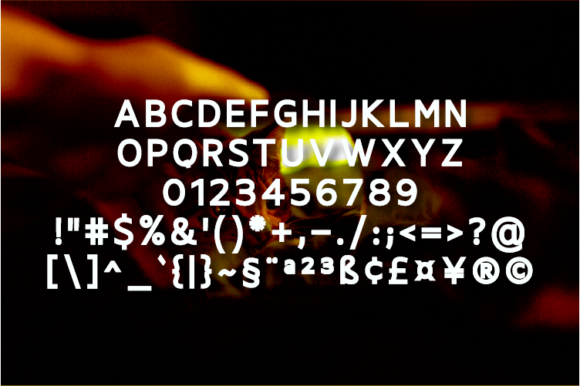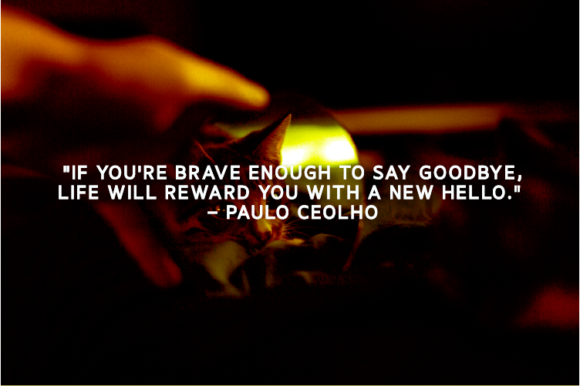
Introducing Edmonde Font: The Ultimate Sans Serif for Your Creative Projects
Are you tired of using the same old fonts for your designs? Look no further! Edmonde Font is here to revolutionize your creative projects with its simplicity and versatility. This sans serif font is carefully crafted to complement any project you’re currently working on, making it the perfect addition to your font library.
What is Edmonde Font?
Edmonde Font is a modern sans serif font designed to provide a clean and elegant look to your designs. Its simplicity makes it an excellent choice for a wide range of projects, from headings and invitations to logos and more. With Edmonde, you can add a touch of sophistication and professionalism to your work, making it stand out from the crowd.
Key Features of Edmonde Font
- Simple and Versatile: Edmonde Font is designed to be simple yet versatile, making it suitable for various design projects.
- Sans Serif: The font features a clean sans serif design, perfect for creating modern and elegant designs.
- Easy to Read: Edmonde Font is optimized for readability, ensuring that your text is clear and easy to understand.
- Highly Customizable: The font comes with a range of customization options, allowing you to tailor it to your specific design needs.
Use Cases for Edmonde Font
Edmonde Font is an incredibly versatile font that can be used in a variety of design projects, including:
- Headings: Use Edmonde Font to create stunning headings that grab attention and add a touch of elegance to your designs.
- Invitations: Create beautiful invitations for special occasions, such as weddings, birthdays, and more.
- Logos: Edmonde Font is perfect for creating stunning logos that reflect your brand’s personality and values.
- Signage: Use Edmonde Font for signage, such as billboards, posters, and more.
- Digital Media: Edmonde Font can also be used in digital media, including social media graphics, presentations, and more.
Benefits of Using Edmonde Font
By using Edmonde Font in your design projects, you can enjoy a range of benefits, including:
- Consistency: Edmonde Font helps maintain consistency across your designs, creating a cohesive brand image.
- Professionalism: The font’s clean and elegant design adds a touch of professionalism to your work, making it more engaging and effective.
- Creativity: Edmonde Font’s versatility allows you to experiment with different design styles and ideas, giving you the freedom to be creative.